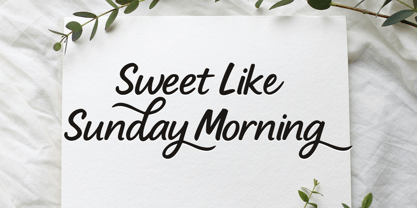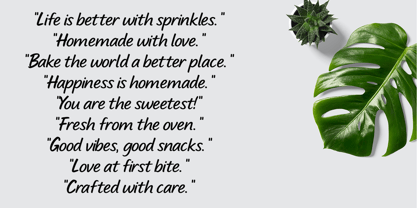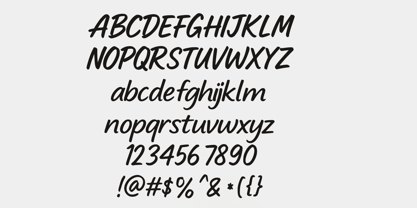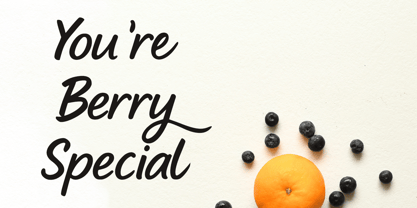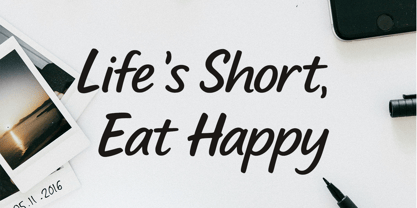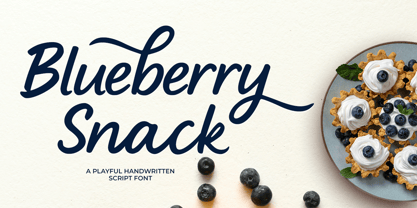
Blueberry snack
by Cocodesign
The Blueberry snack Font Family was designed by Muhammad Zaini and published by Cocodesign. Blueberry snack contains 1 styles. More about this family
Blueberry Snack is a sweet and playful handwritten script font that’s perfect for all your crafty creations. With its smooth strokes and friendly vibe, this font is ideal for t-shirts, stickers, greeting cards, quotes, labels, and more.
It’s cut-friendly and designed to work well with cutting machines, making your DIY projects faster and more fun!
Use Blueberry Snack to add a personal, handmade touch to every design!